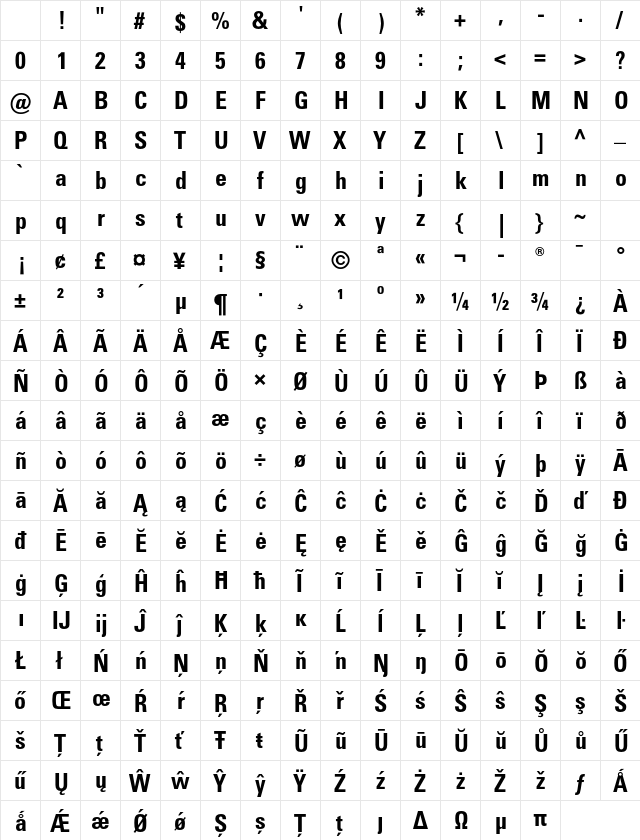
Univers LT W0467 is a composed and adaptable typeface that performs quietly and consistently across a wide range of design contexts. Its bold stroke weight gives it real presence on the page.